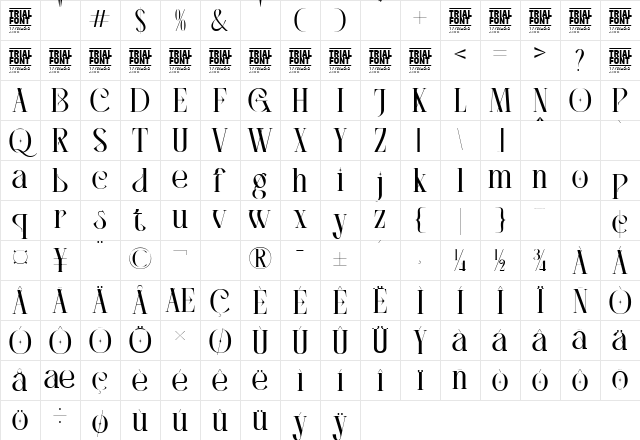
Complete PARANOID CHARACTER DEMO Regular glyph index. Displaying only characters natively supported by PARANOID CHARACTER DEMO Regular font.
PARANOID CHARACTER DEMO is a composed and adaptable typeface that performs quietly and consistently across a wide range of design contexts.